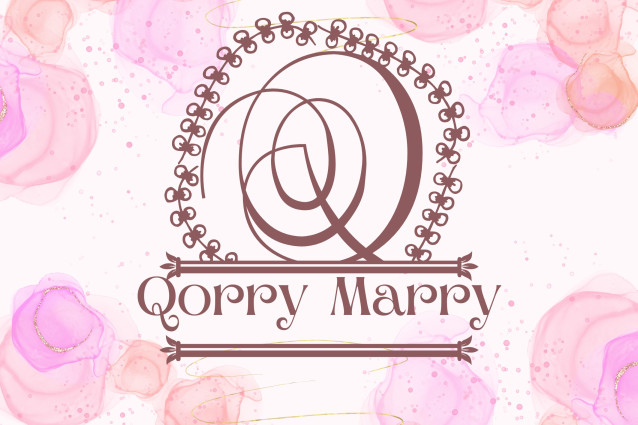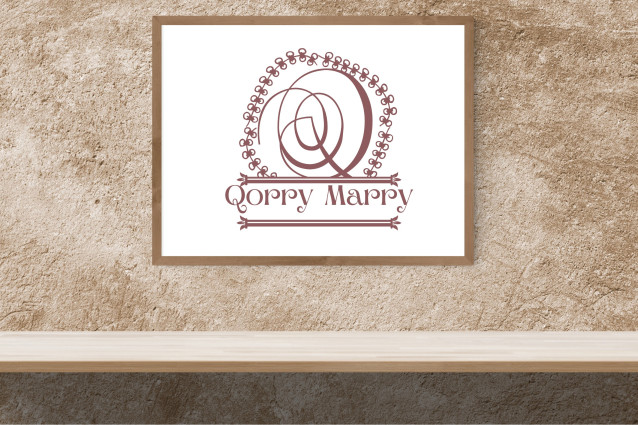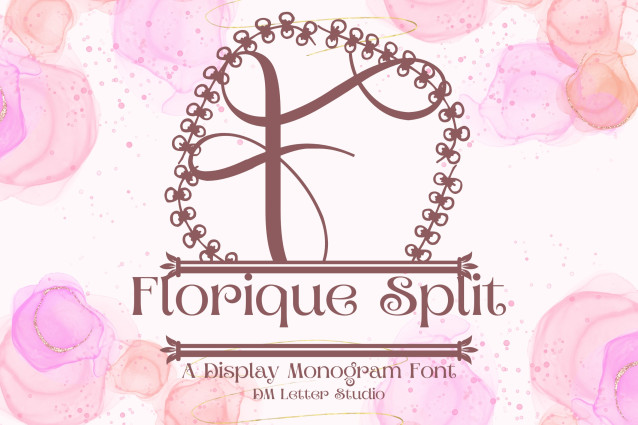
Florique Split Monogram Font is a refined and romantic split monogram font featuring delicate floral accents and classic serif style. Designed with a graceful space between the top and bottom halves of each uppercase letter, this font is ideal for personalizing names, dates, and messages inside the split. Whether you’re creating wedding signage, luxury packaging, or thoughtful gifts, Florique Split Monogram brings a sense of timeless floral elegance to your work.